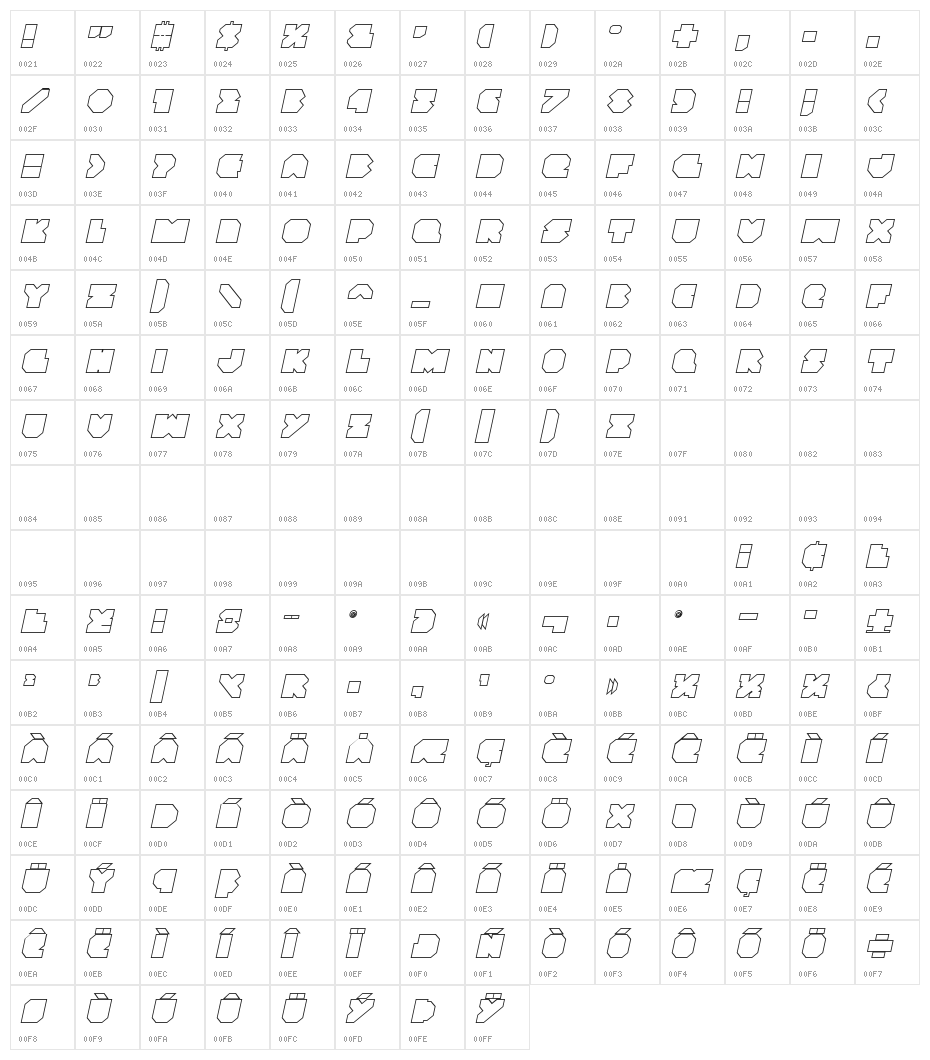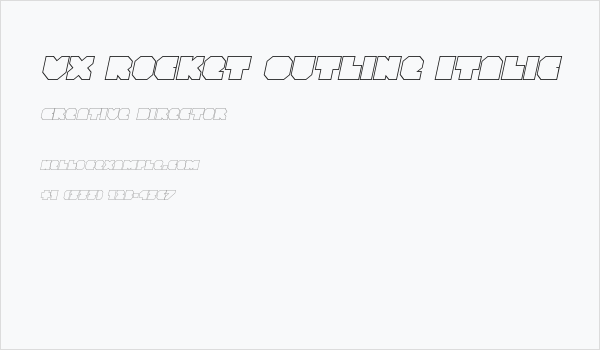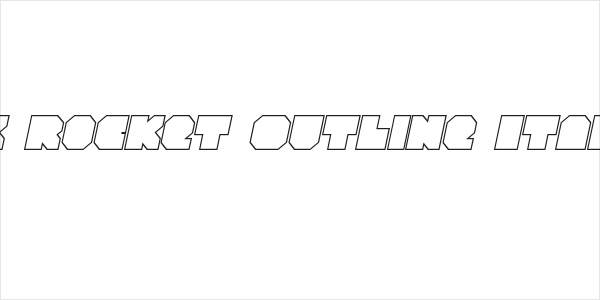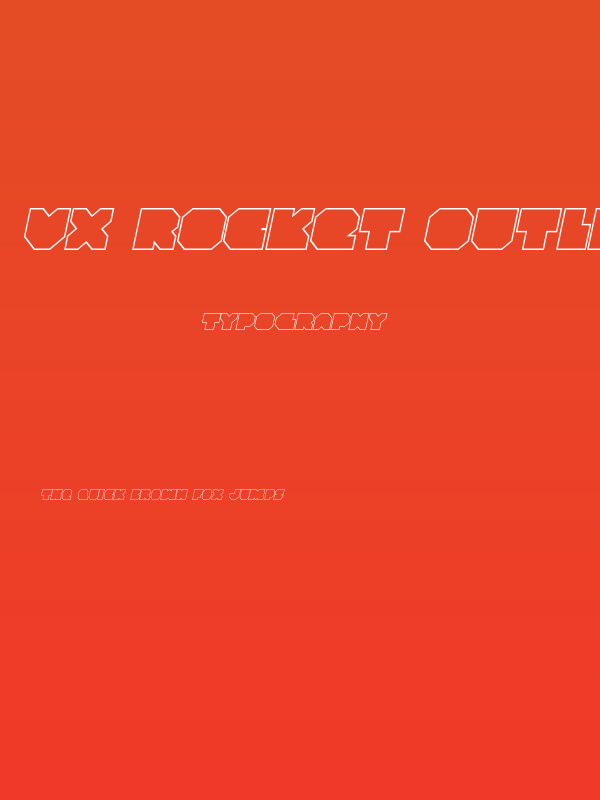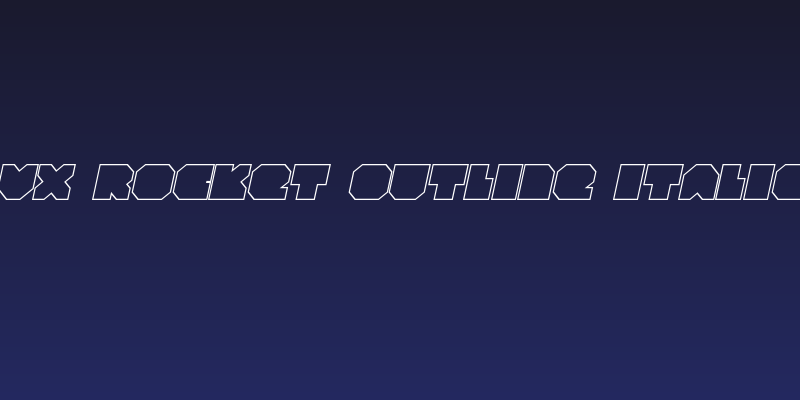
VX Rocket Outline Italic Font
VX Rocket Outline Italic Description
This font features a bold, geometric outline style with a futuristic and angular design. The characters are constructed with sharp edges and straight lines, giving it a modern and tech-inspired appearance. The italic slant adds a dynamic and forward-moving feel, enhancing its contemporary look. The uppercase and lowercase letters maintain a consistent structure, while the numbers and special characters follow the same angular theme. This font is ideal for projects that require a standout, edgy aesthetic.
| Proposed Projects | Ideal for sci-fi themed designs, tech branding, video game titles, and modern posters. |